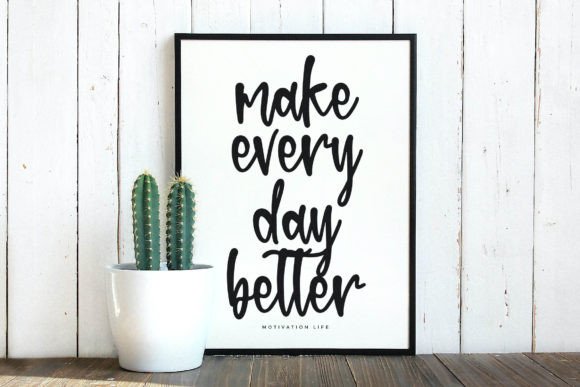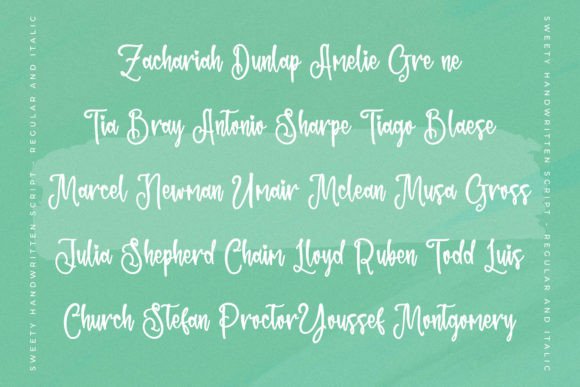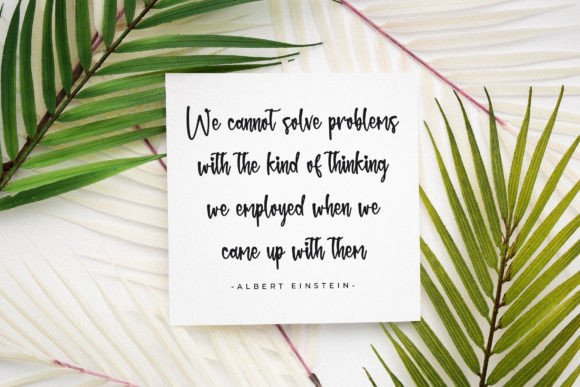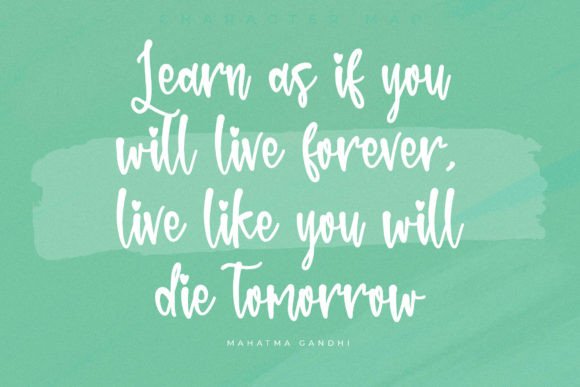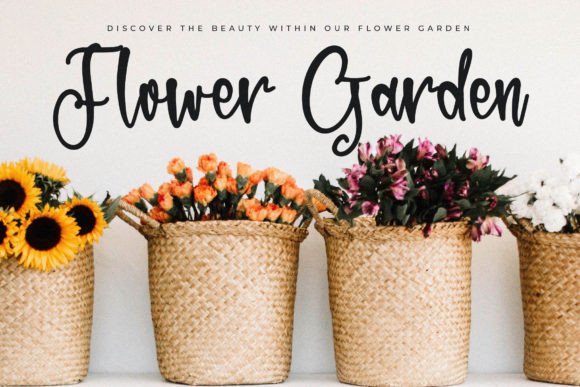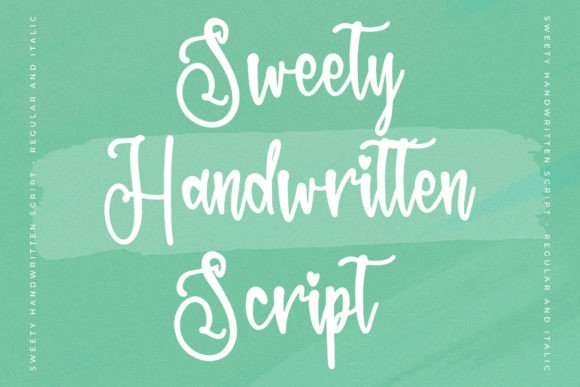
Millstesia Font Font – Free Download
Introduction to Millstesia Font Font
Fonts play a crucial role in design, and the Millstesia Font font is a typeface that brings both character and versatility to any project. Whether you’re working on a branding project, a website, or a print design, the Millstesia Font font offers a unique style that can elevate your work.
| 👤 Author | Glorytype Studio |
Millstesia is a sweety handwritten script.
This lovely font is suitable for any project like logos, branding projects, homeware designs, product packaging, mugs, quotes, posters, shopping bags, t-shirts, book covers, name cards, invitation cards, greeting cards, labels, photography, watermarks, or special events .
Key Features of Millstesia Font Font
Why Choose Millstesia Font Font?
The Millstesia Font font is more than just a typeface – it’s a design tool that helps you communicate your message with style and clarity. Its unique character set and versatile design make it suitable for a wide range of applications, from elegant invitations to bold headlines.
With its carefully crafted letterforms and balanced proportions, the Millstesia Font font ensures readability and visual appeal across all mediums.
What makes Millstesia Font font special?
The Millstesia Font font stands out with its unique design, exceptional readability, and versatility across various design applications.